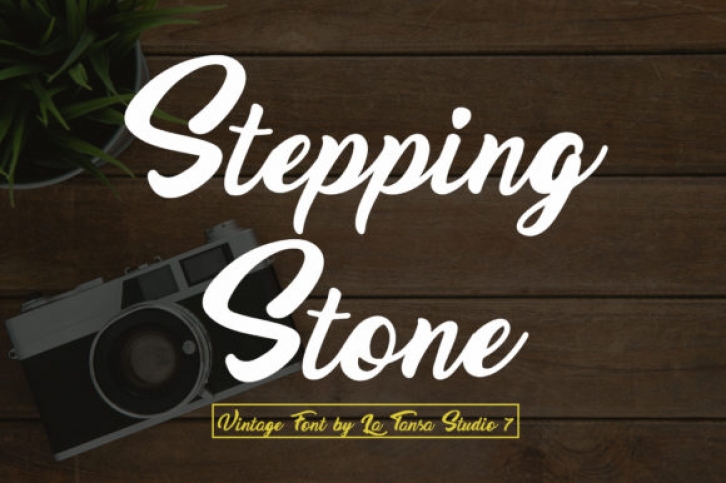
Stepping Stone is a beautifully clear handwritten font. It is the best choice for any creations that need a natural, genuine, and effortless look, such as cards, letters, product tags, name tags, and more!